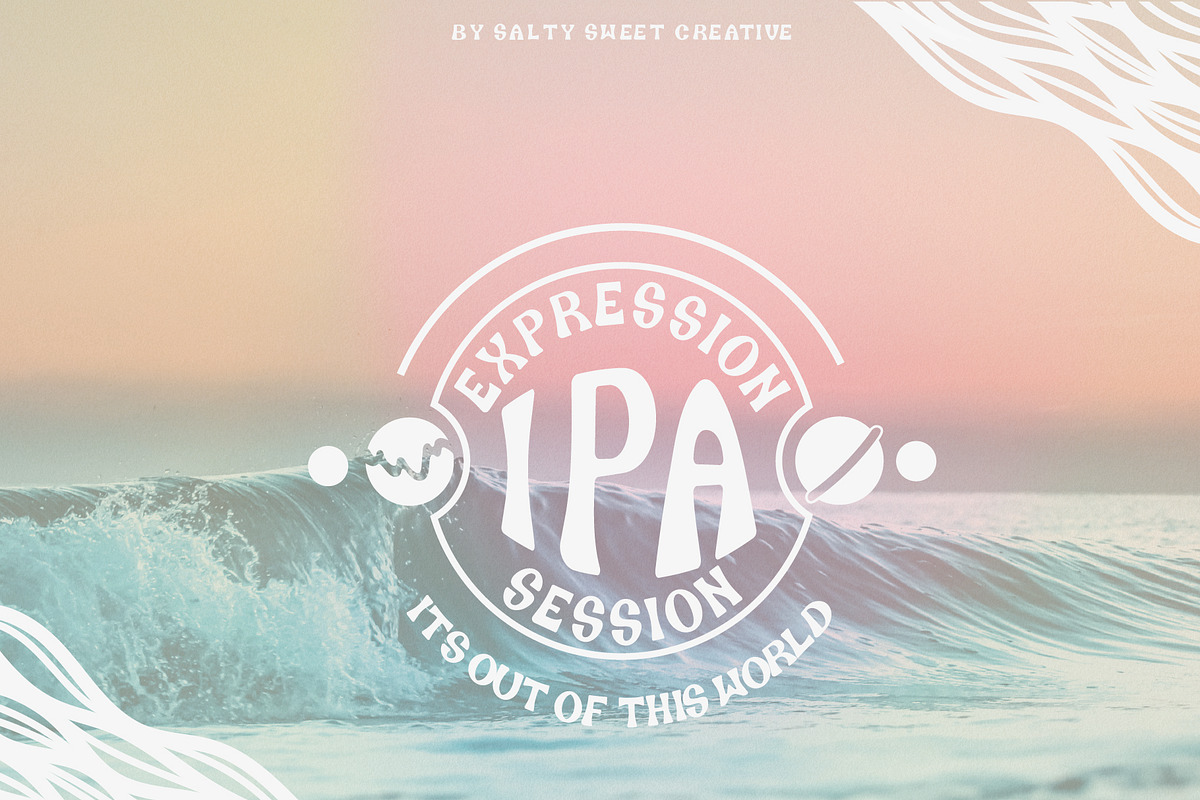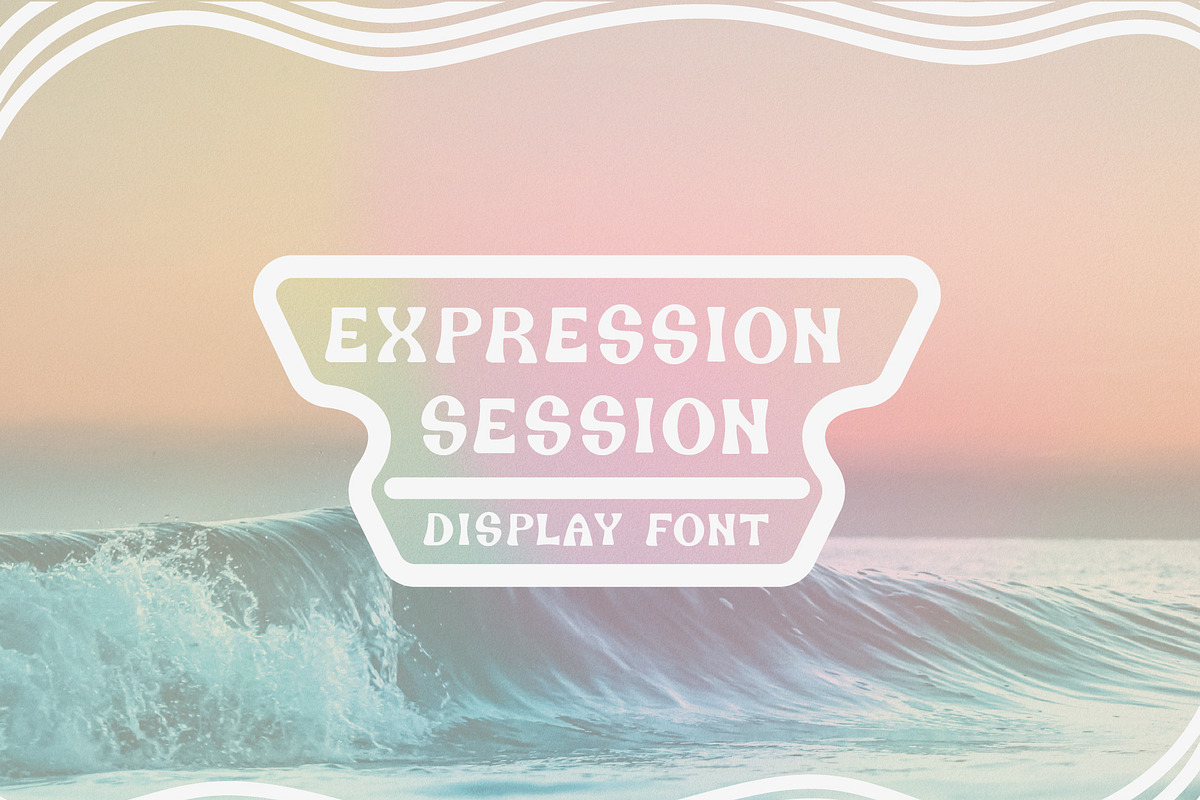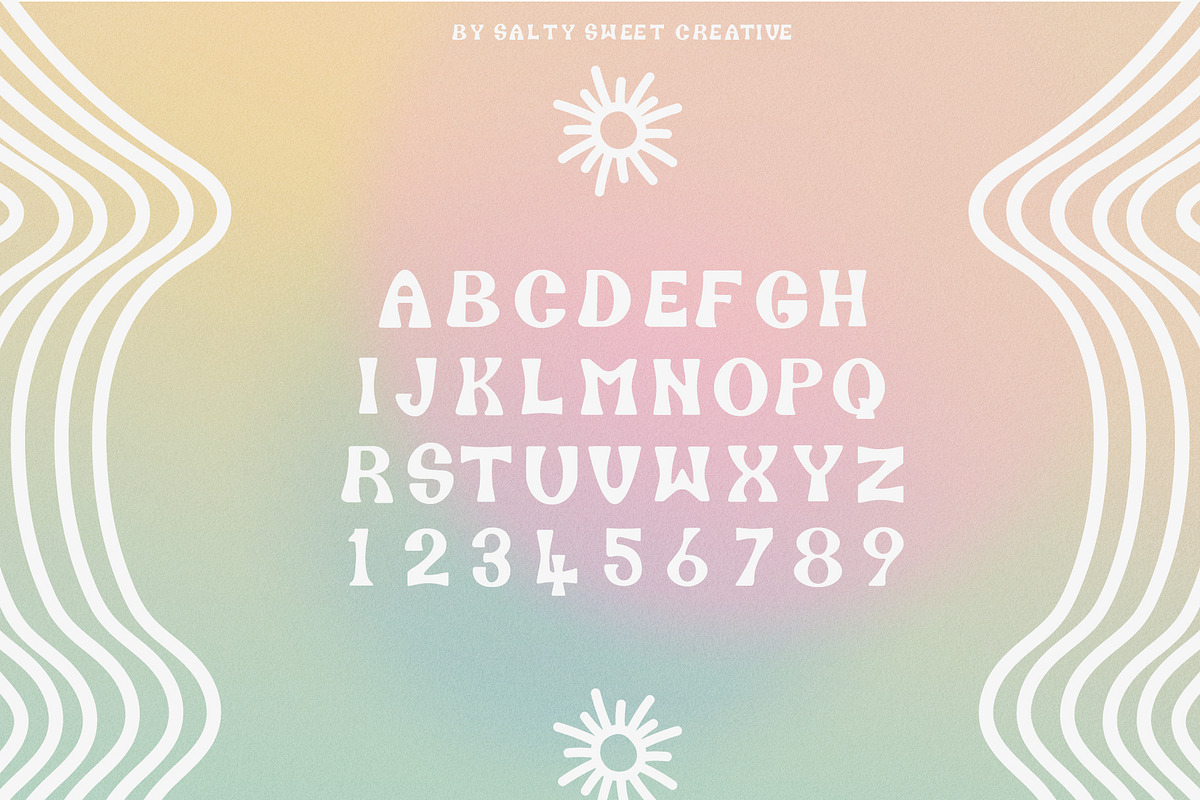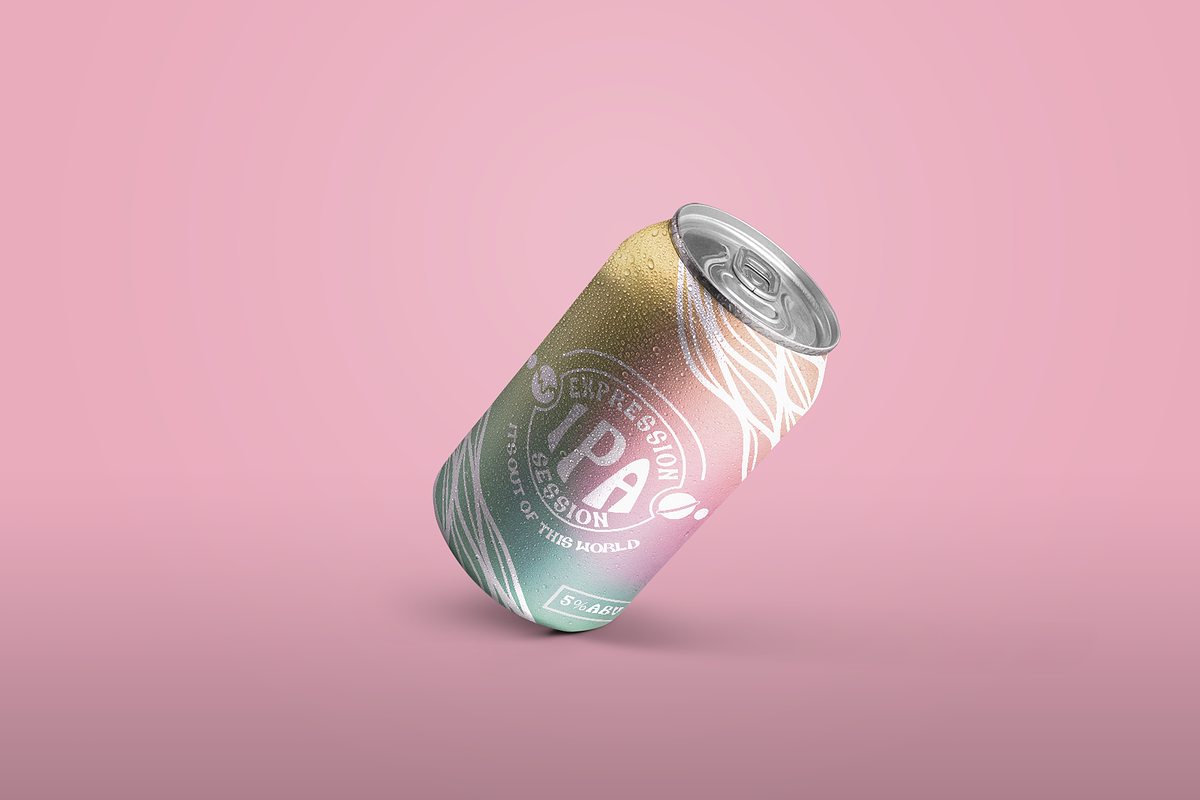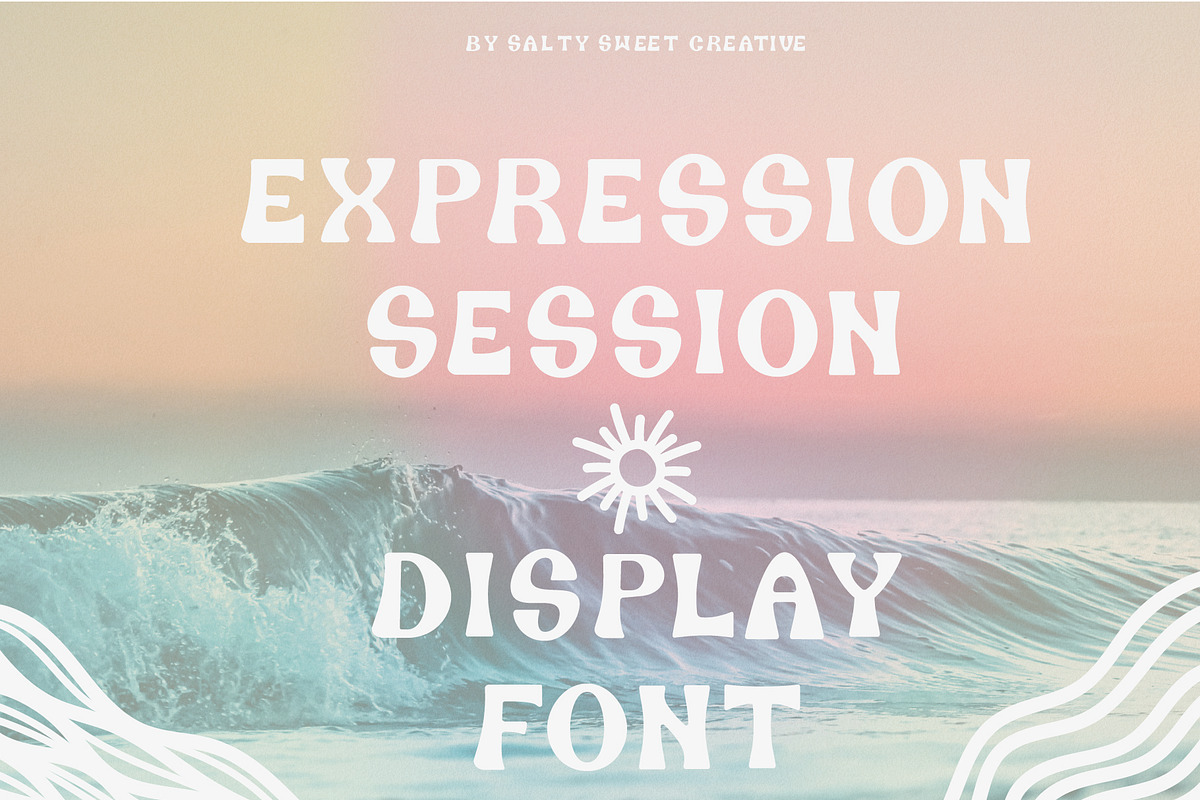
Expression Session Display Font
Expression session is a fun and playful font that captures a bit of the retro beach culture but is still refined enough to be used as a part of logos or branding.
We created expression session for those of you that want a hint of the retro surf vibe! This versatile font is perfect for logos, branding, posters and artwork lending itself to you creative needs.